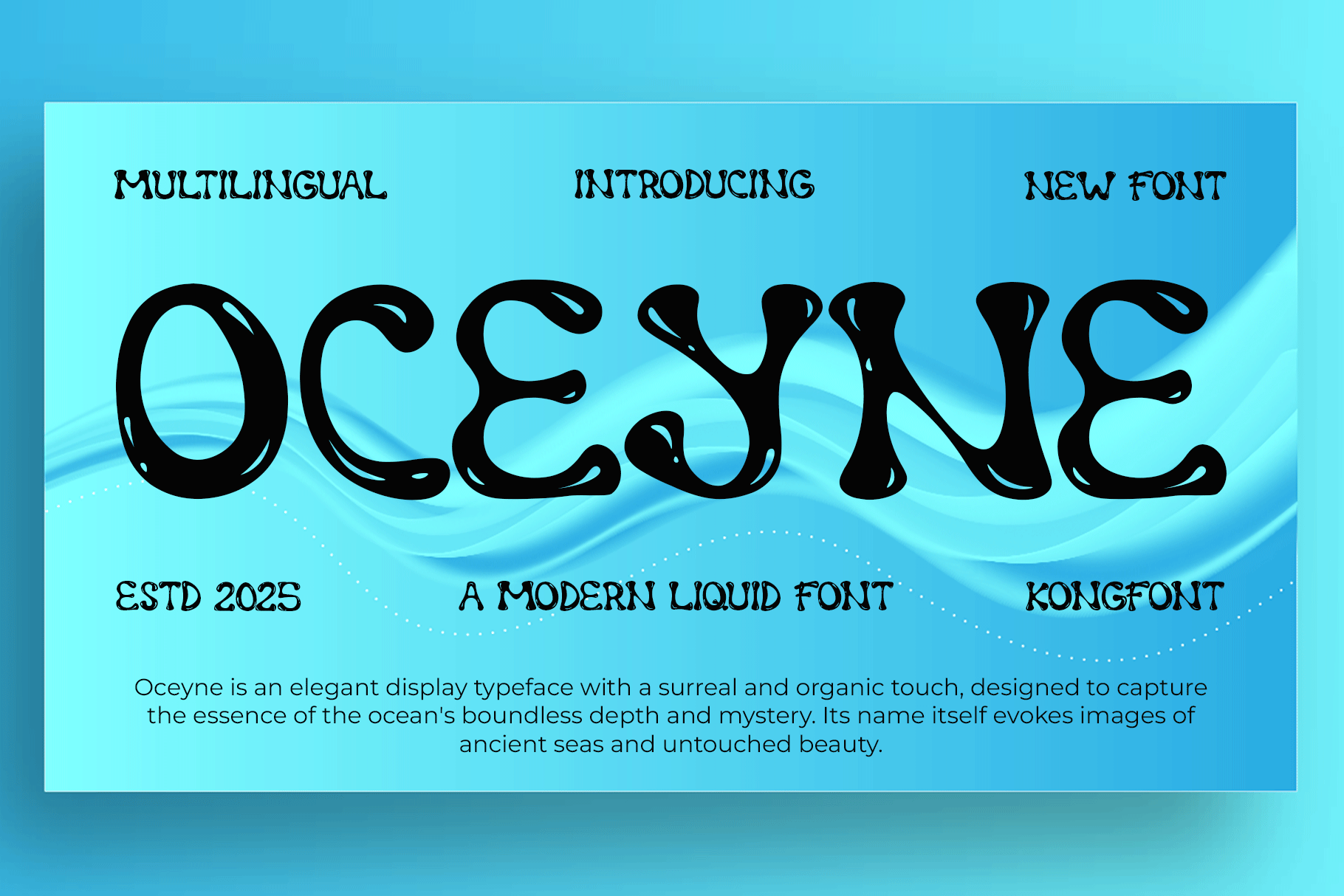
Oceyne – Modern Liquid Font
Introducing Oceyne, a modern liquid font that captures the essence of motion, creativity, and fluid elegance. Inspired by the smooth flow of water and organic forms, Oceyne delivers a unique typographic experience with soft curves and dynamic shapes that bring your designs to life.
Perfect for branding, poster designs, digital artwork, music covers, and social media visuals, Oceyne stands out with its fresh, flowing appearance. Its versatile letterforms allow you to create both futuristic and artistic styles with ease, making it an excellent choice for designers seeking something bold yet harmonious.
Whether you’re crafting a logo that stands apart or designing captivating titles, Oceyne adds a splash of modern creativity and visual rhythm to your project.